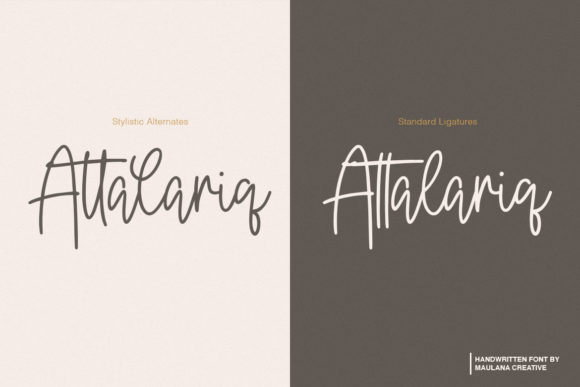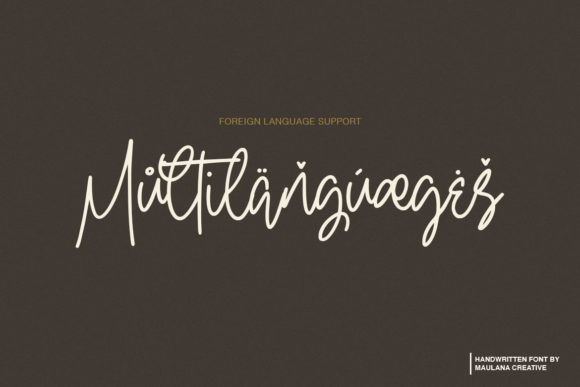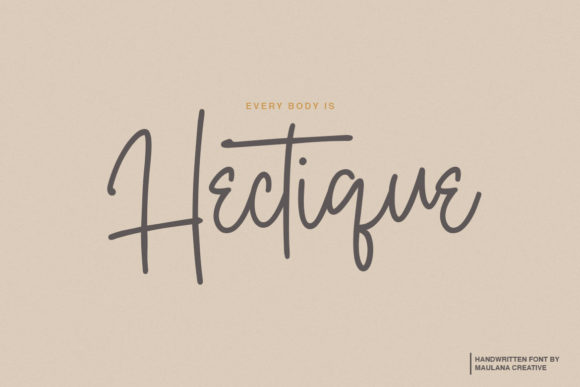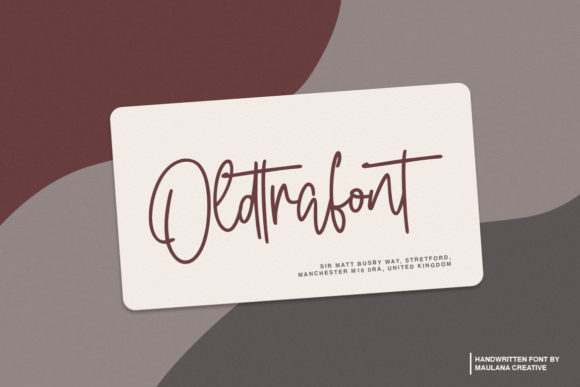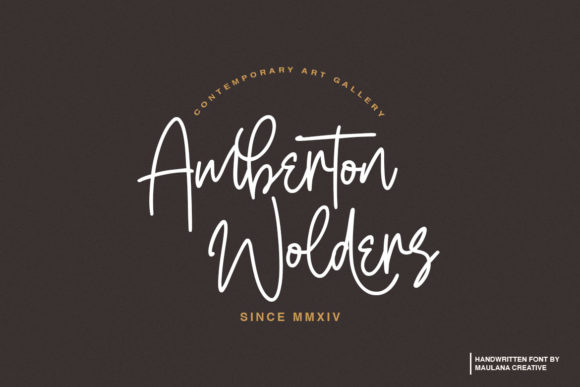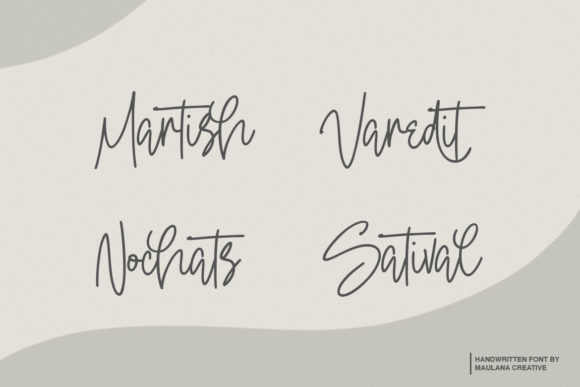
Introduction to Oterdin Font
Oterdin is a modern and unique handwritten font.
It has an authentic handcrafted feel and will add an elegant touch to any design .
Why Choose Oterdin Font?
Oterdin Font offers exceptional quality and versatility, making it a valuable addition to your design toolkit. Whether you’re creating for personal projects or commercial use, Oterdin Font delivers professional results.